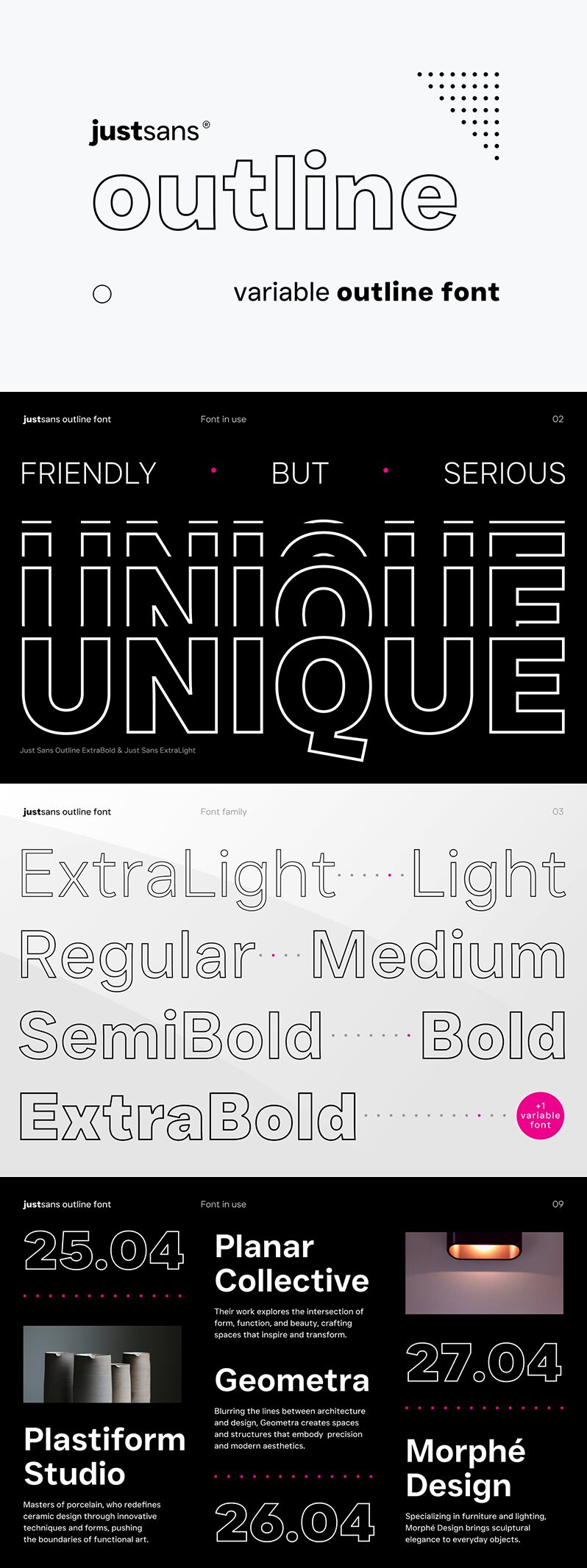
Just Sans Outline font
Just Sans Outline
Jacob Cass
JUST Sans Outline is a clean, minimal display typeface that combines modernist warmth with geometric clarity and a friendly edge.
This font is designed to complement our popular JUST Sans font, adding dimension and contrast while maintaining a crisp and elegant appearance.